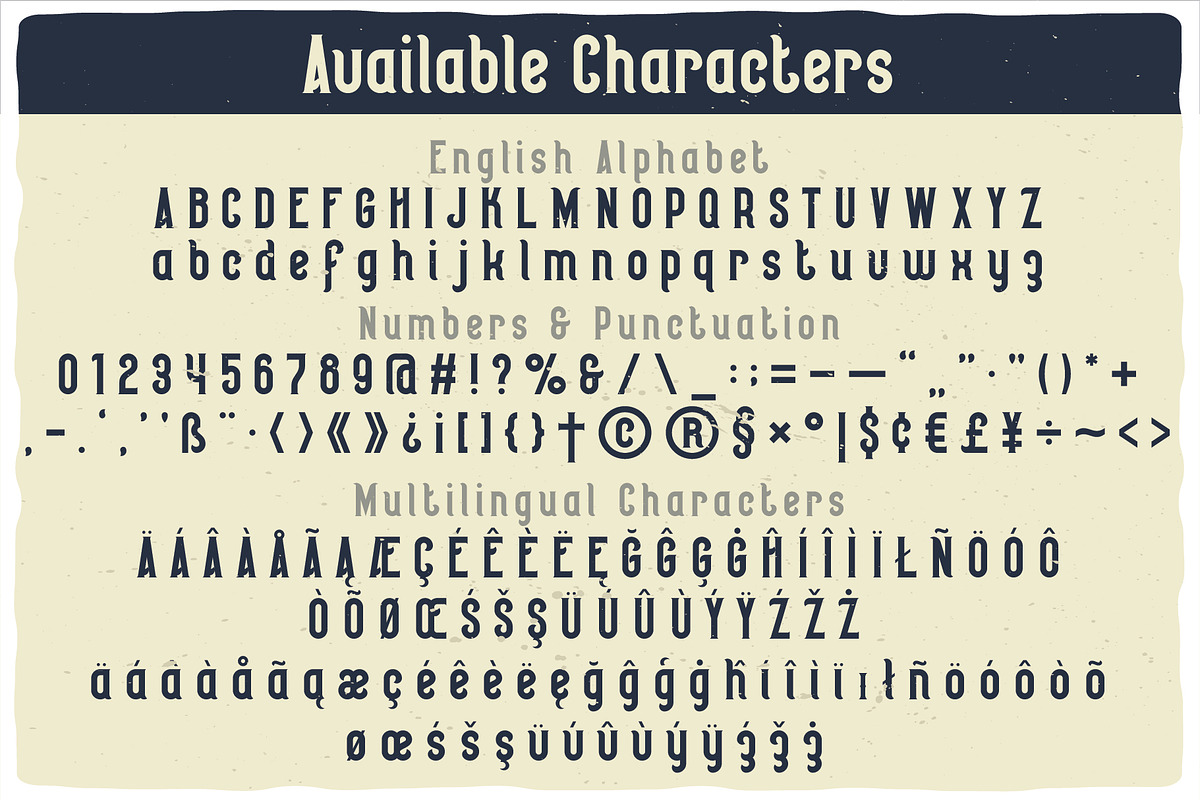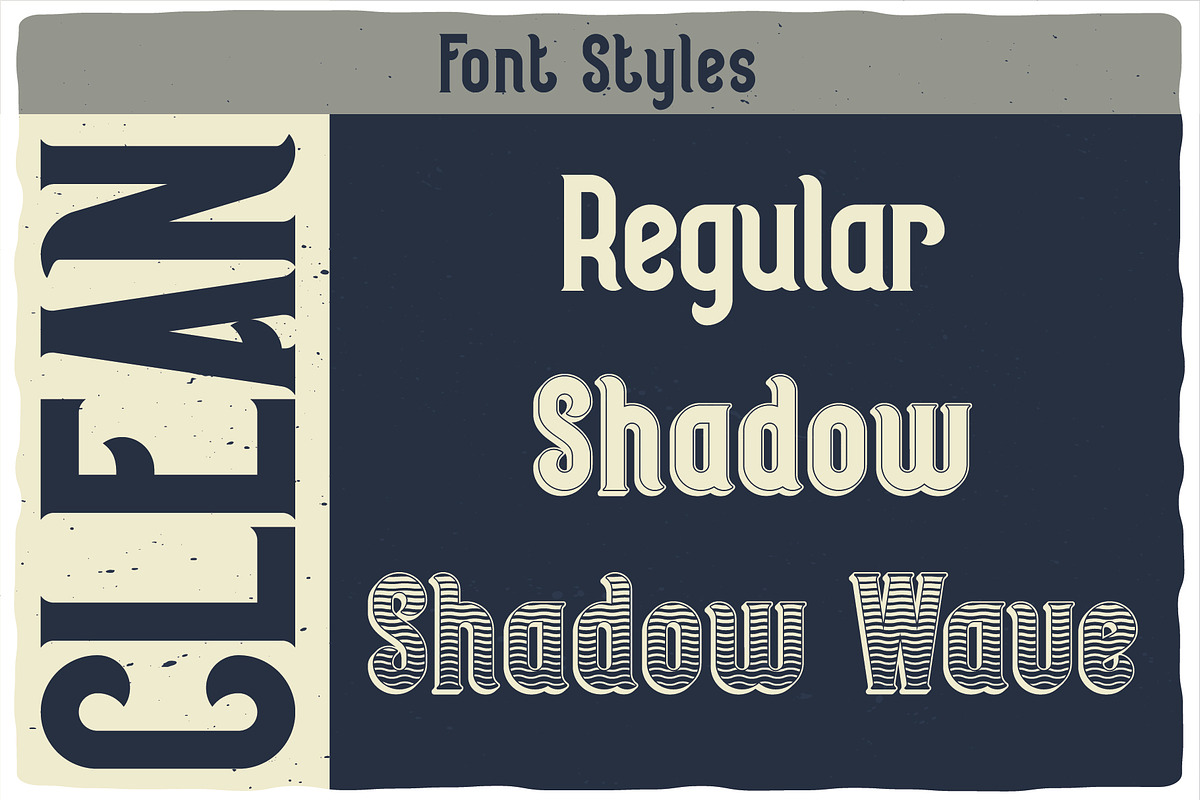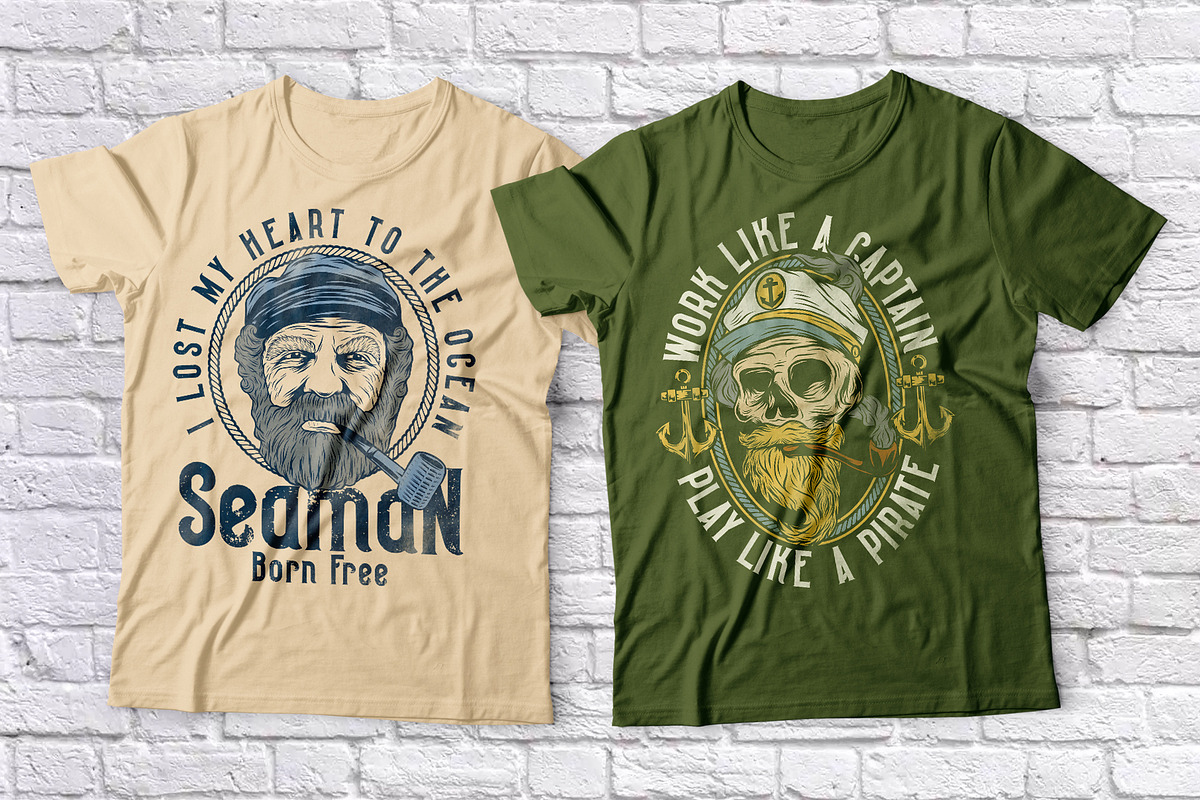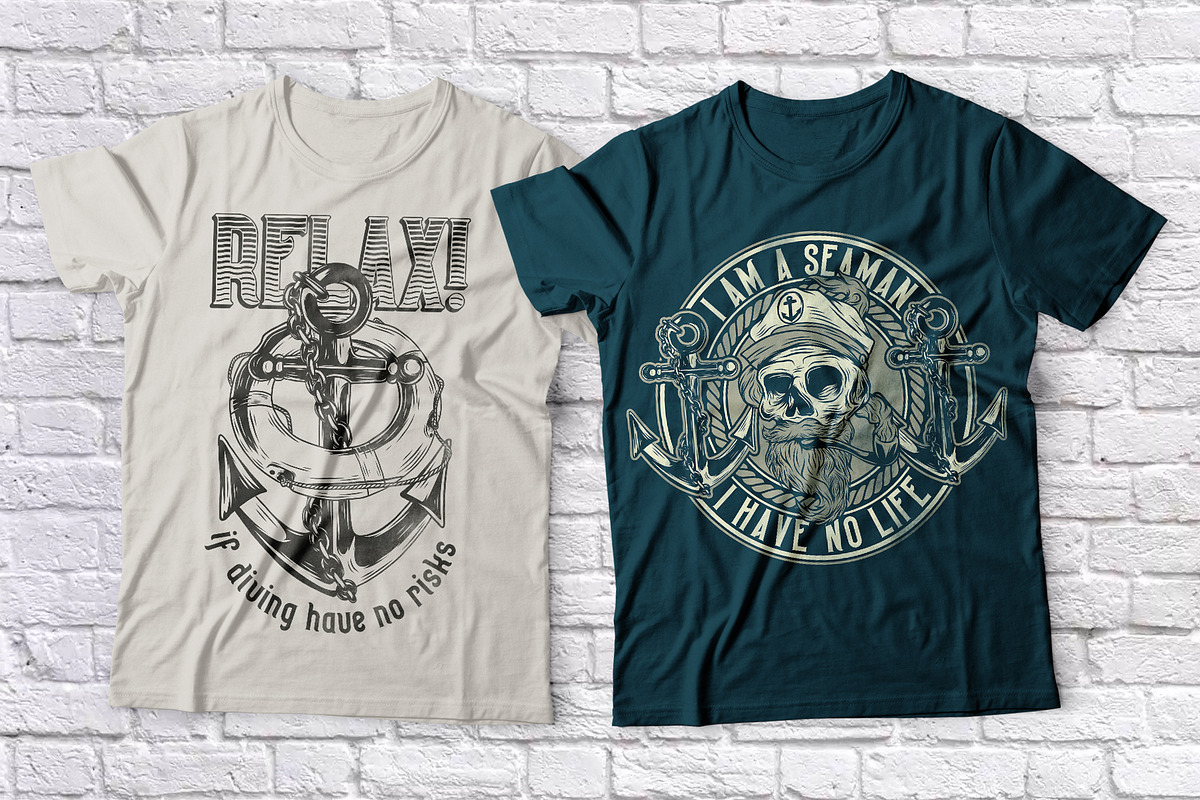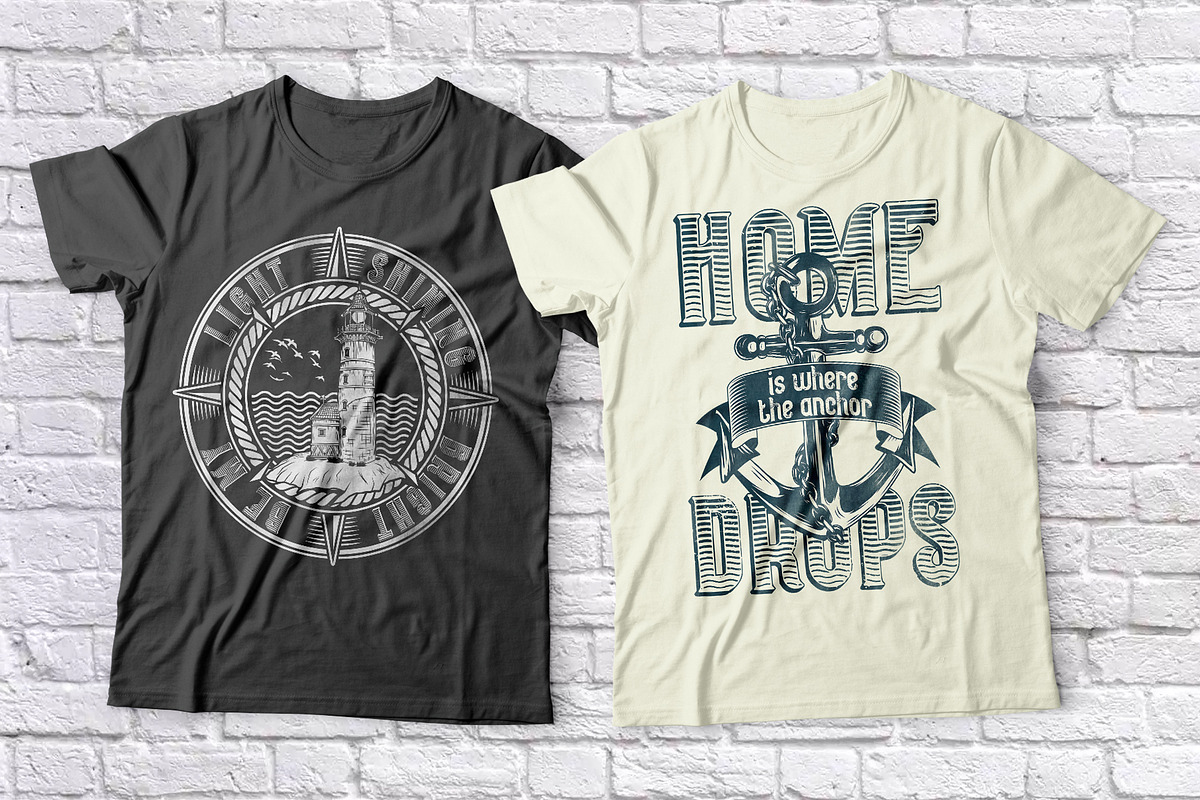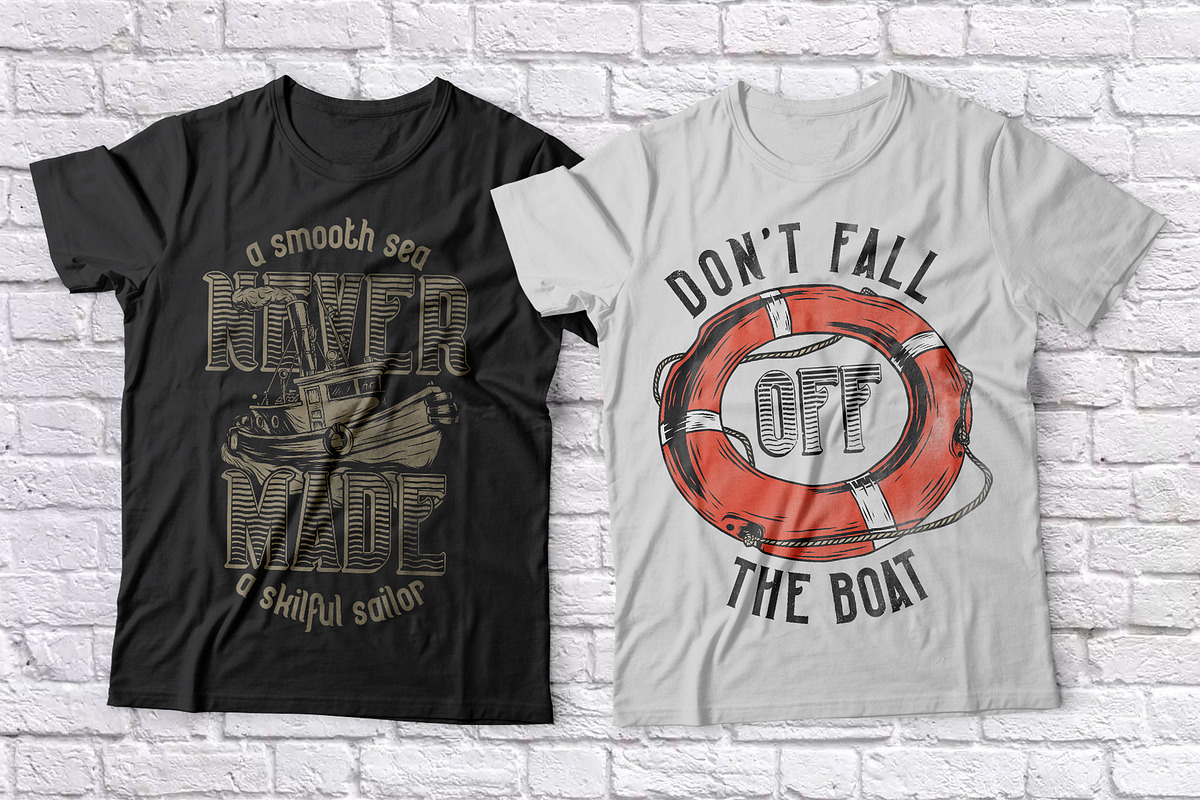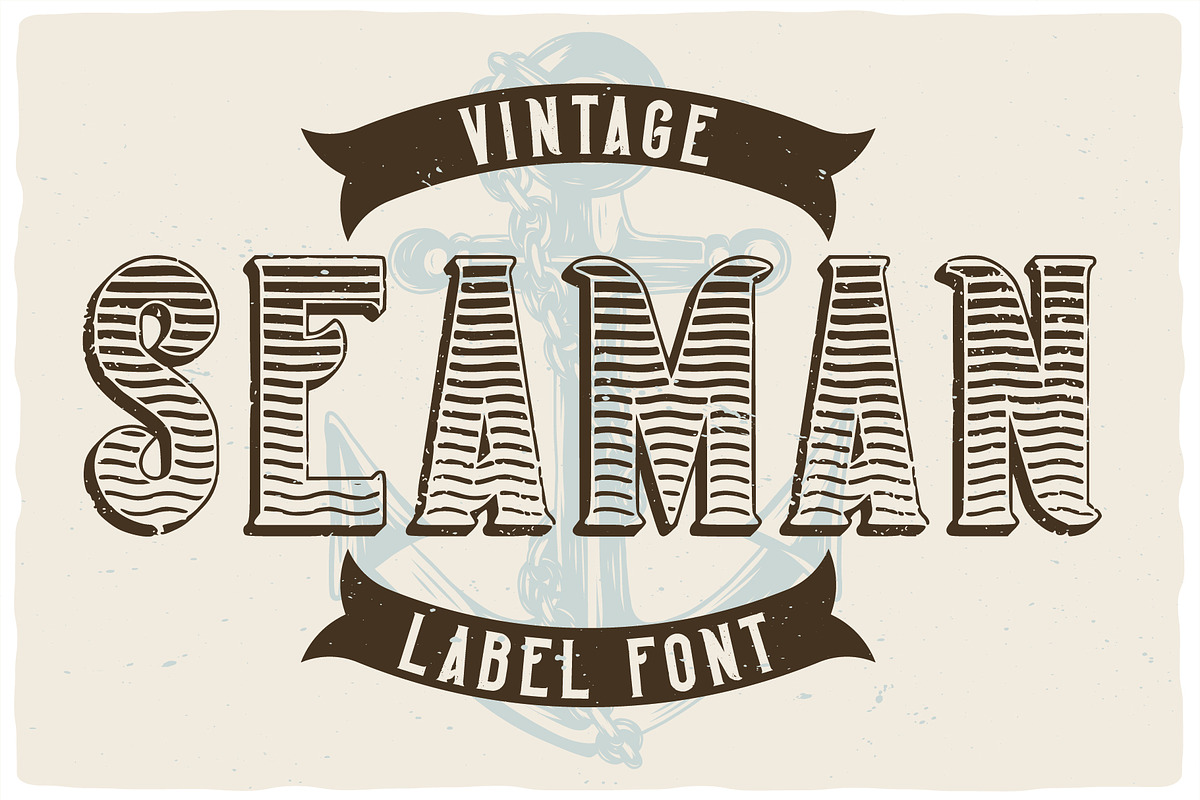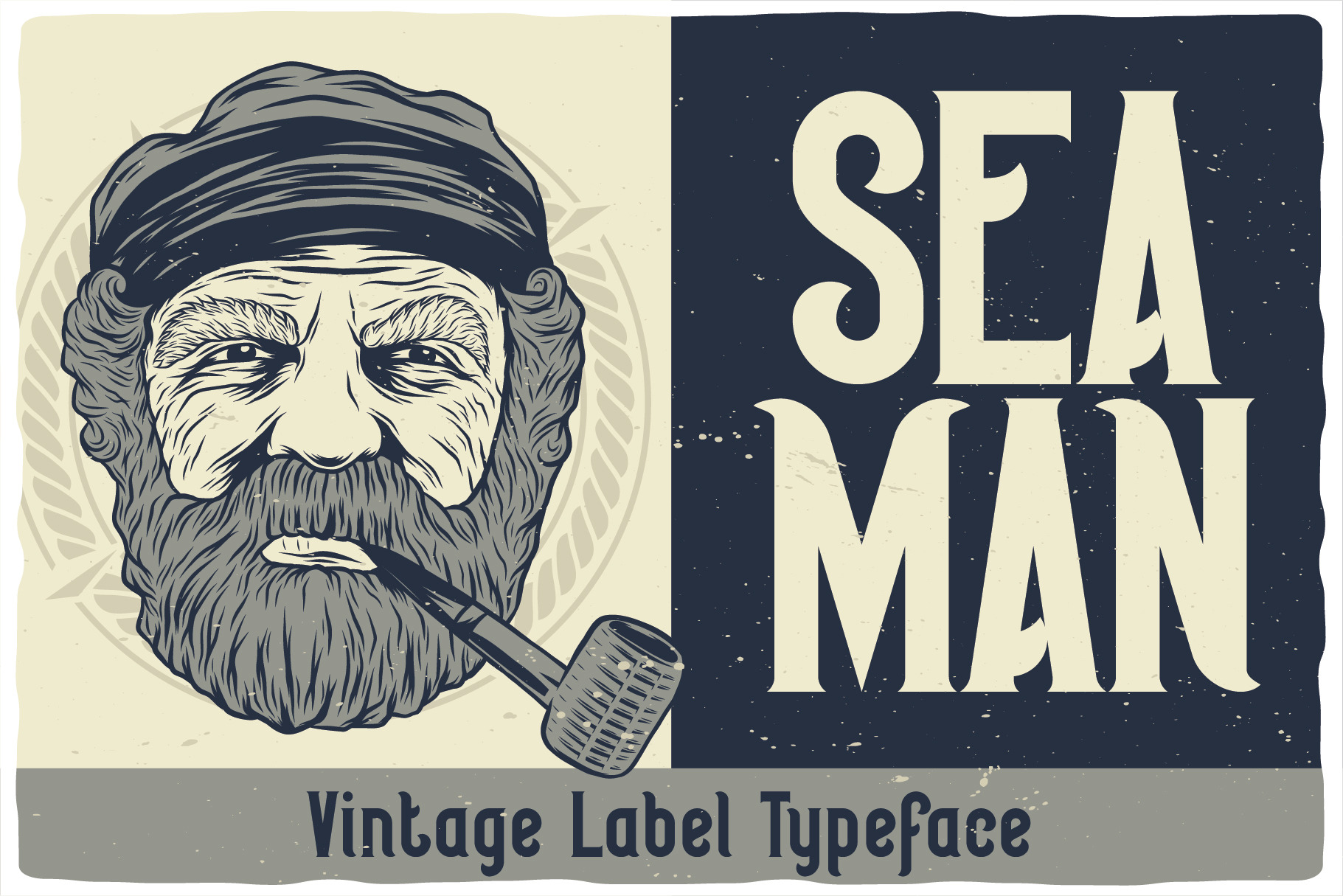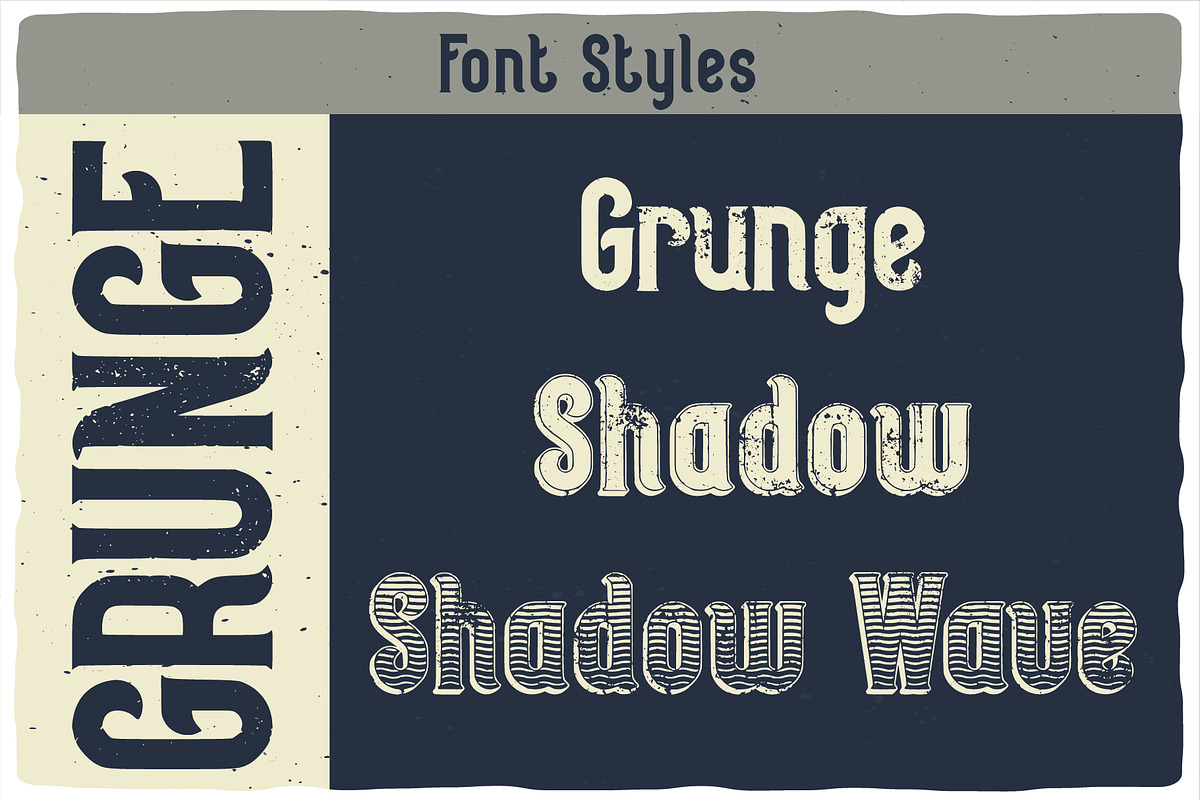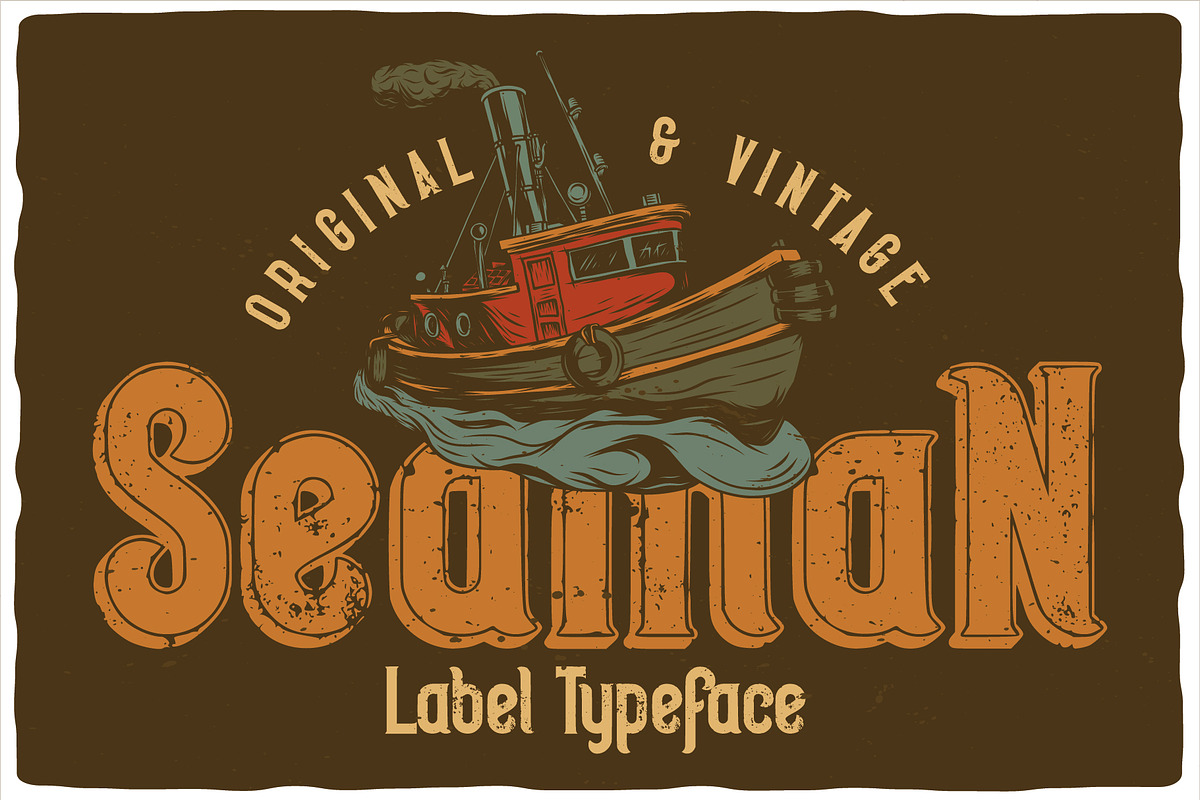
Seaman Label Font
Introducing a vintage label font named Seaman. All available characters you can see at the screenshots. This font has two variations, Clean and Grunge, and for each included three styles - Clean, Shadow and Shadow Wave. This font will look good on any retro design like a poster, T-shirt, label, logo, etc.
- A lot of additional symbols and multilingual support